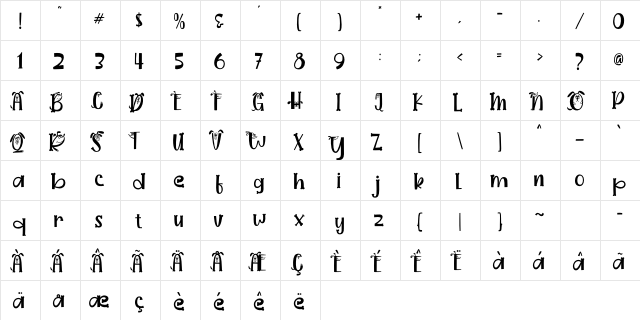
Dogmeal Figure Regular Font Preview
Dogmeal Figure Regular
Dogmeal Figure Regular Font Details
| Foundry | Allmostudio |
| Designer | Muhammad Nur Alamsyah |
Design Context for Dogmeal Figure Typeface
Dogmeal Figure is a composed and adaptable typeface that performs quietly and consistently across a wide range of design contexts.